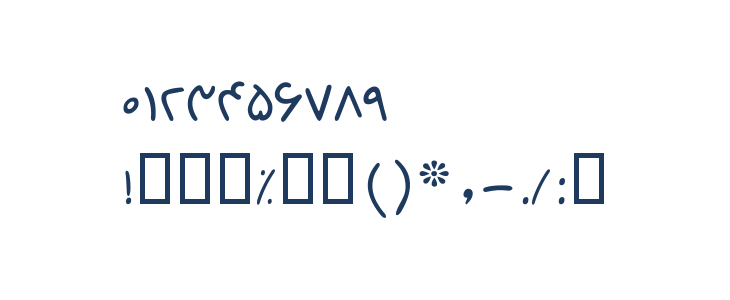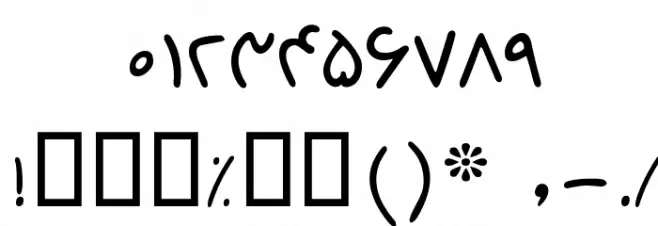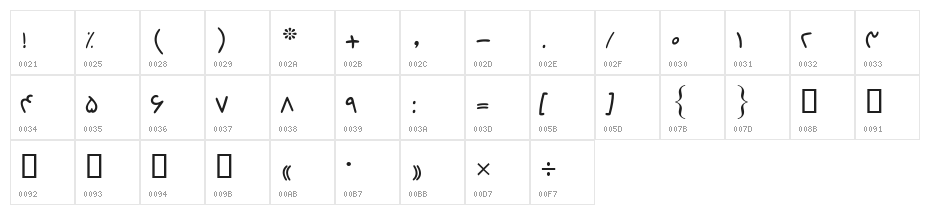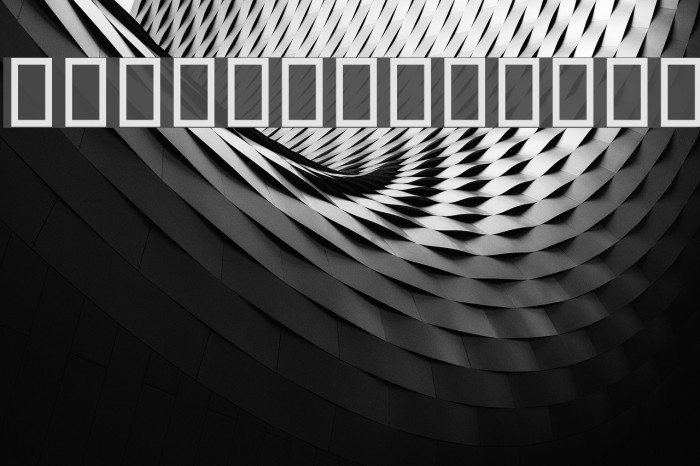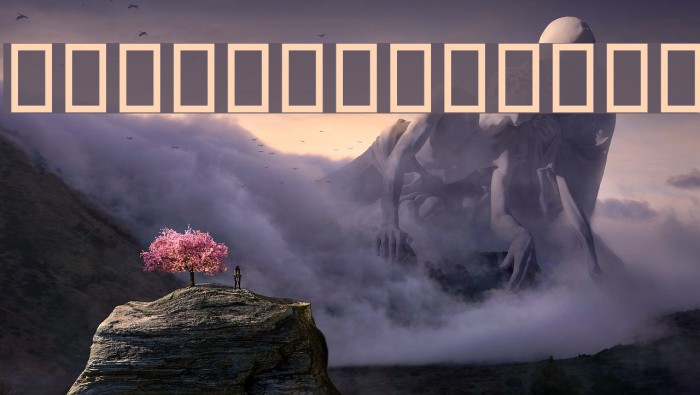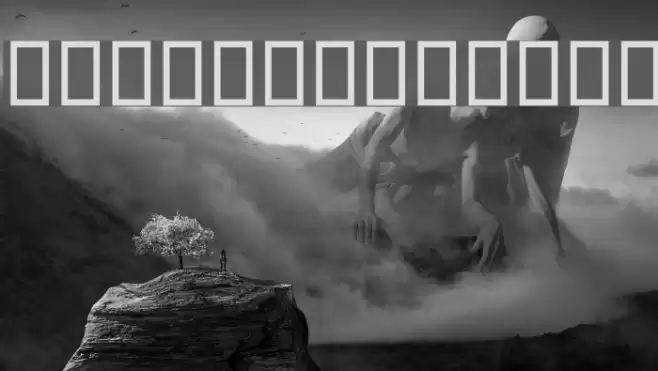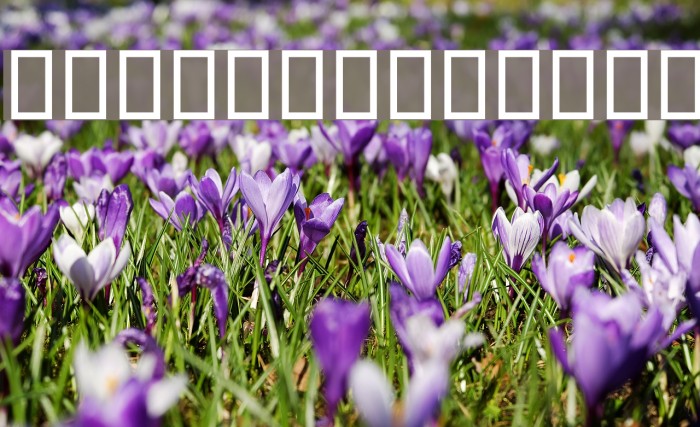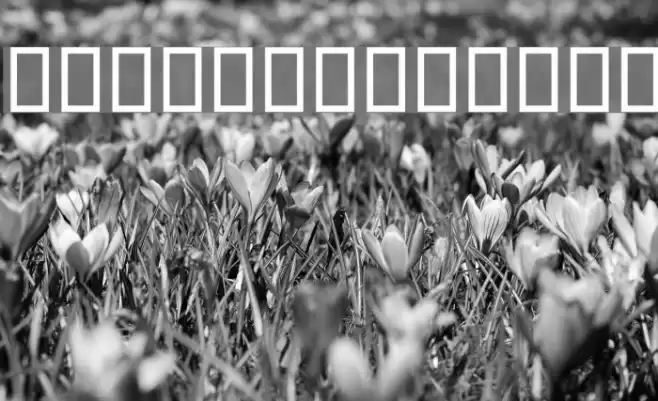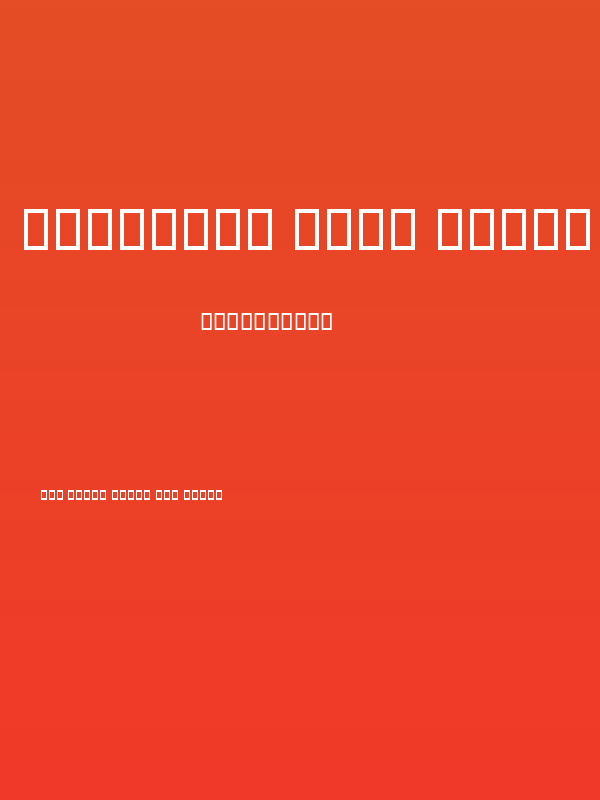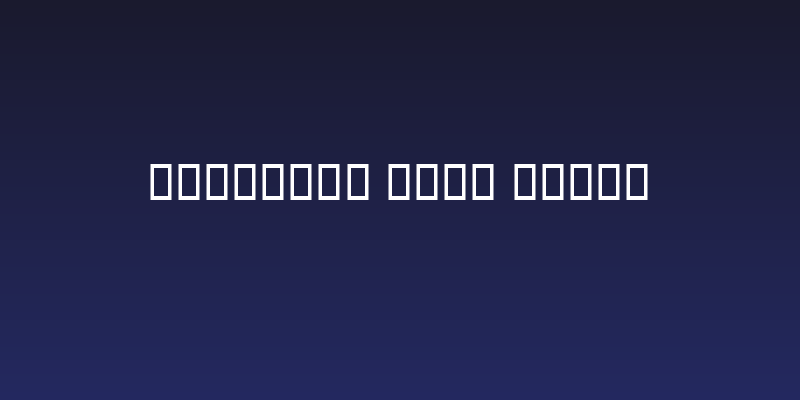
Destkhat Girl Light Font
Destkhat Girl Light Description
This font features a playful and whimsical design, characterized by its light and airy strokes. The characters exhibit a hand-drawn quality, with a slight slant that adds a dynamic feel. The numerals and special characters maintain the same playful style, ensuring consistency across all elements. The overall appearance is casual and friendly, making it suitable for projects that require a touch of personality and creativity.
Overall StylePlayful
Use CaseLogos, Invitations, Creative projects
Proposed ProjectsIdeal for children's books, greeting cards, playful branding, and creative invitations.